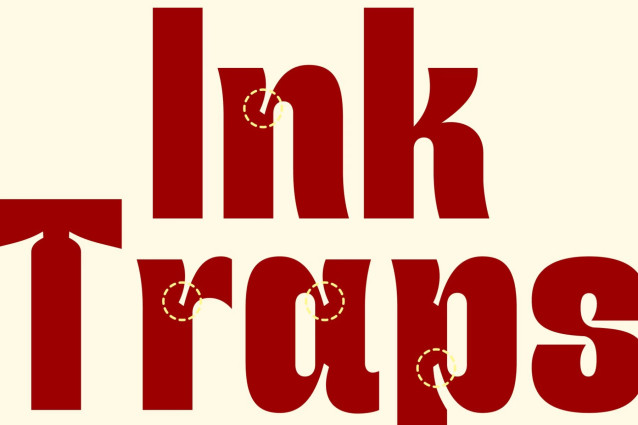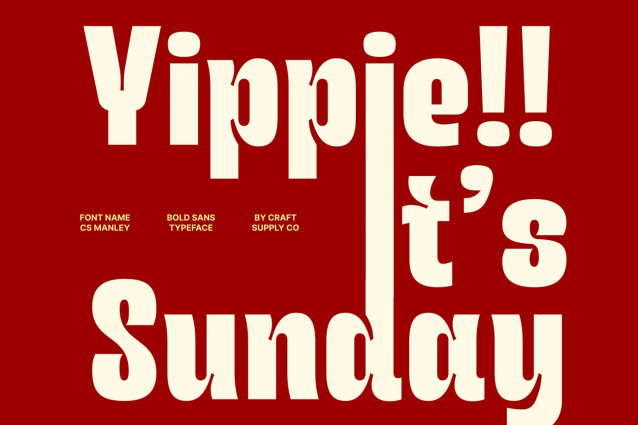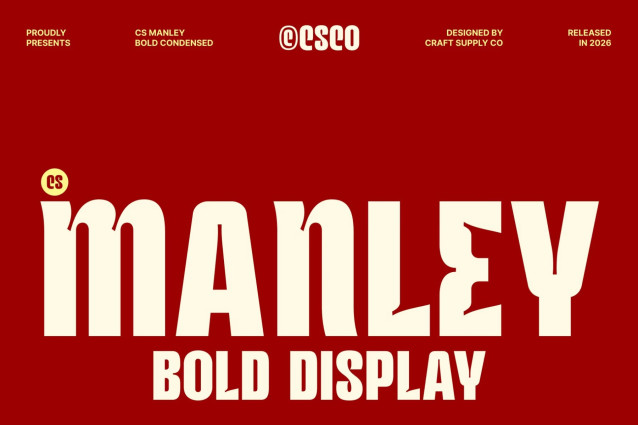
CS Manley – Inktrap Font
CS Manley – Bold Condensed Sans Serif Font: Where Strong Impact Meets Playful Inktrap Character
Tall, Clean Forms with Powerful Presence
This is a bold condensed sans serif font designed to maximize visual impact through its tall proportions and strong structure. Its clean, modern letterforms create a commanding presence while efficiently utilizing space, making it ideal for headlines, posters, and display typography. The condensed construction enhances its bold personality, ensuring every message feels clear, confident, and attention-grabbing.
Inktrap Details with Distinctive Appeal
This font introduces subtle cuts and refinements that add depth, clarity, and unique character to the typeface. These details not only improve readability but also give the font a distinctive visual identity. The result is a contemporary design that feels polished, expressive, and full of personality.